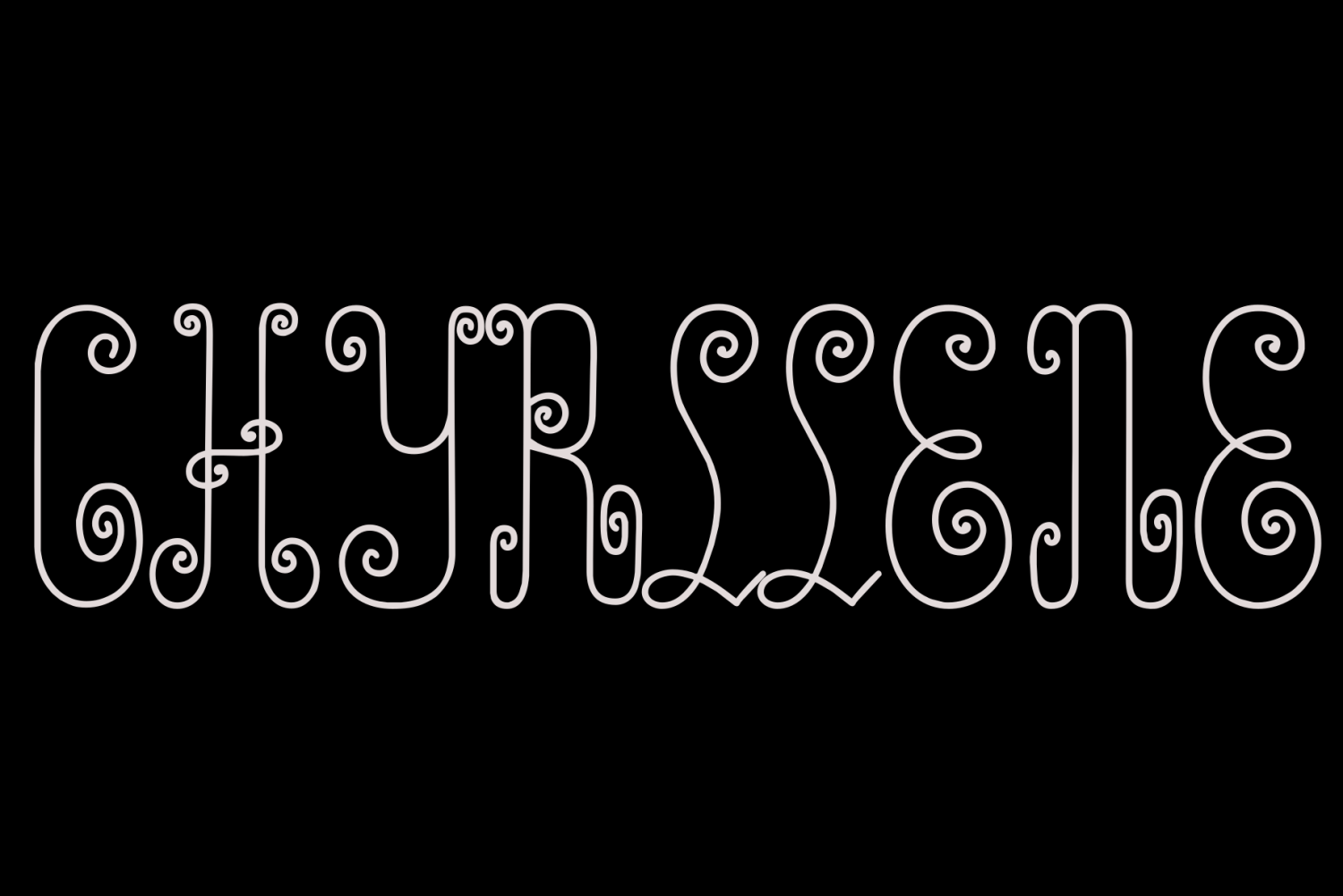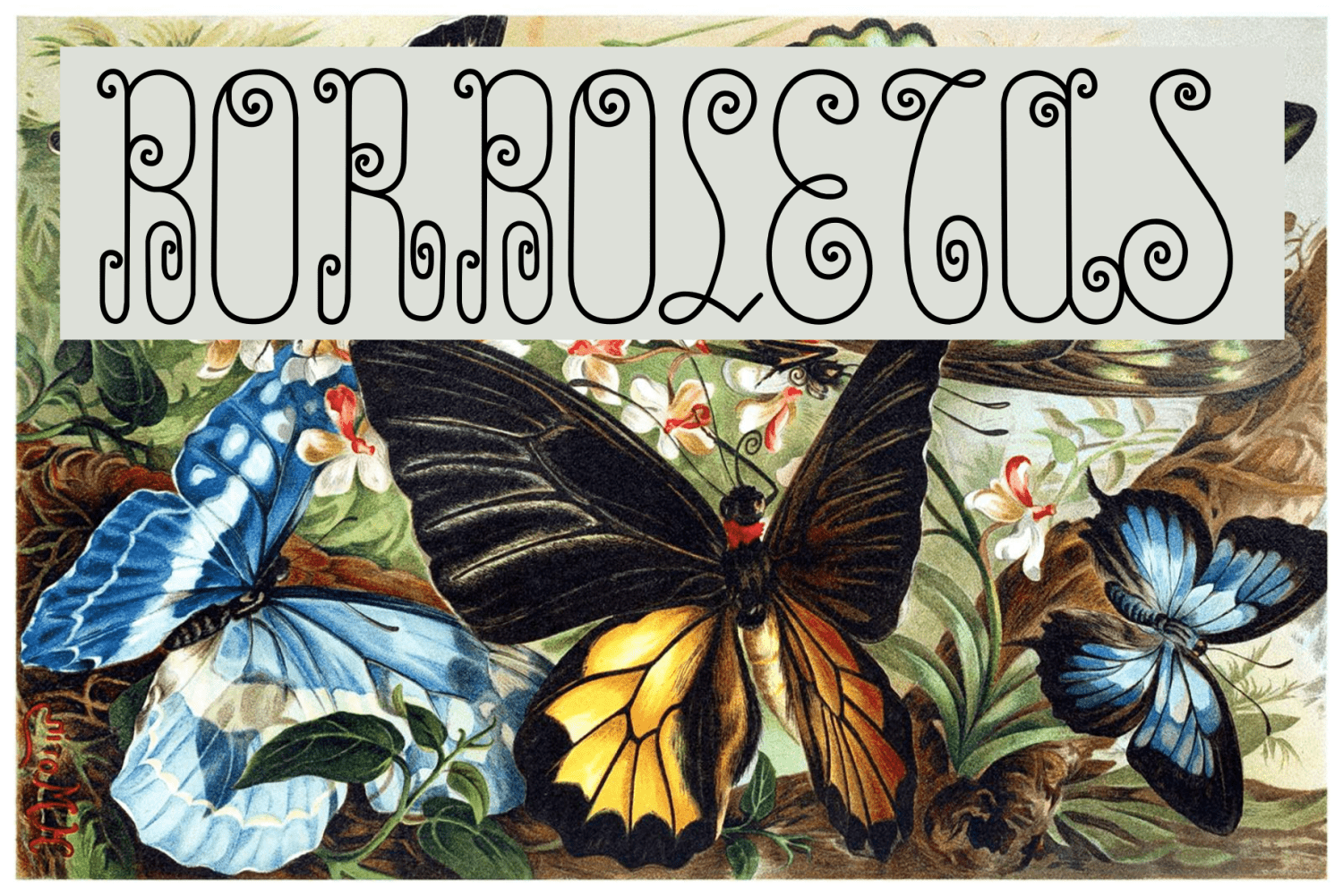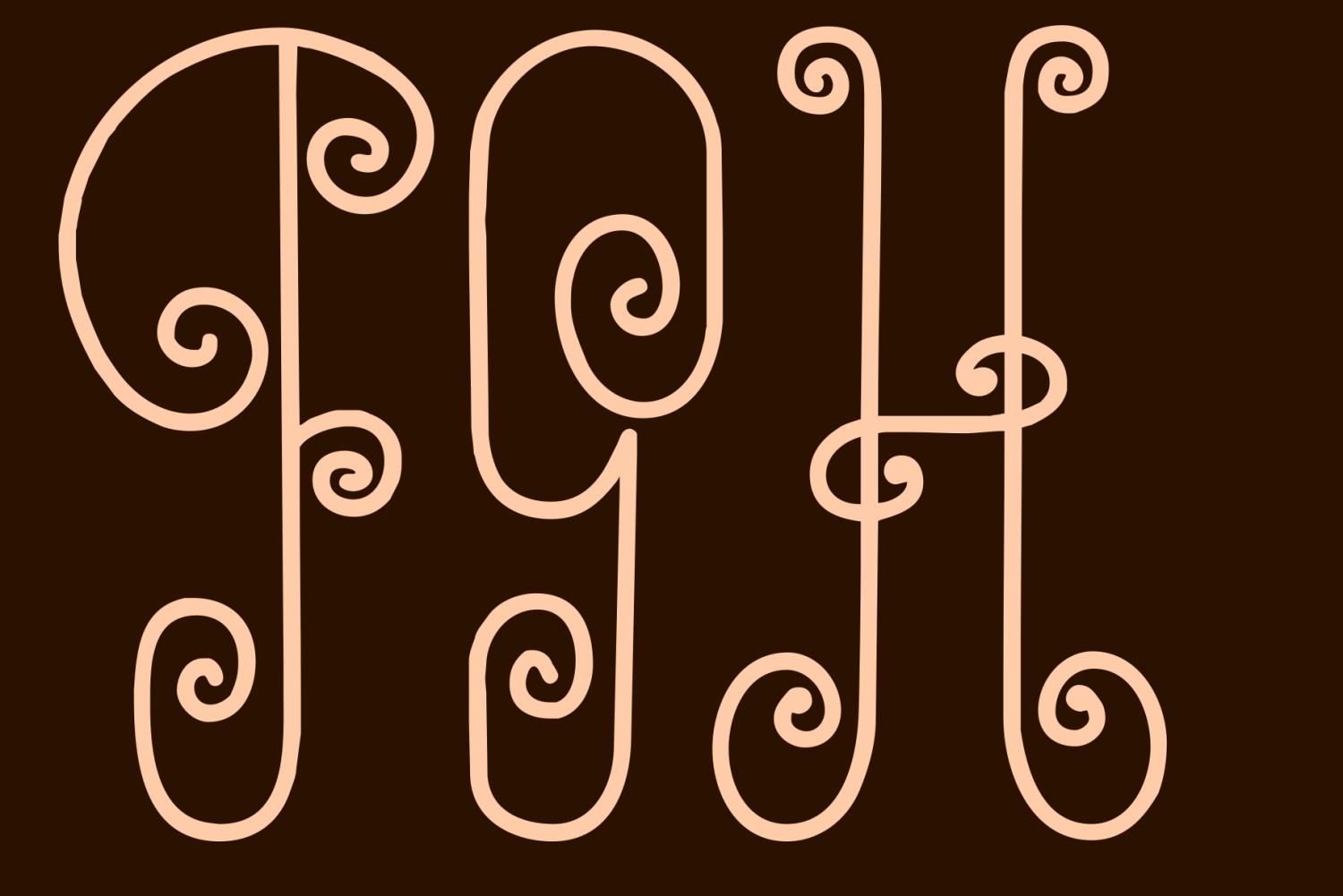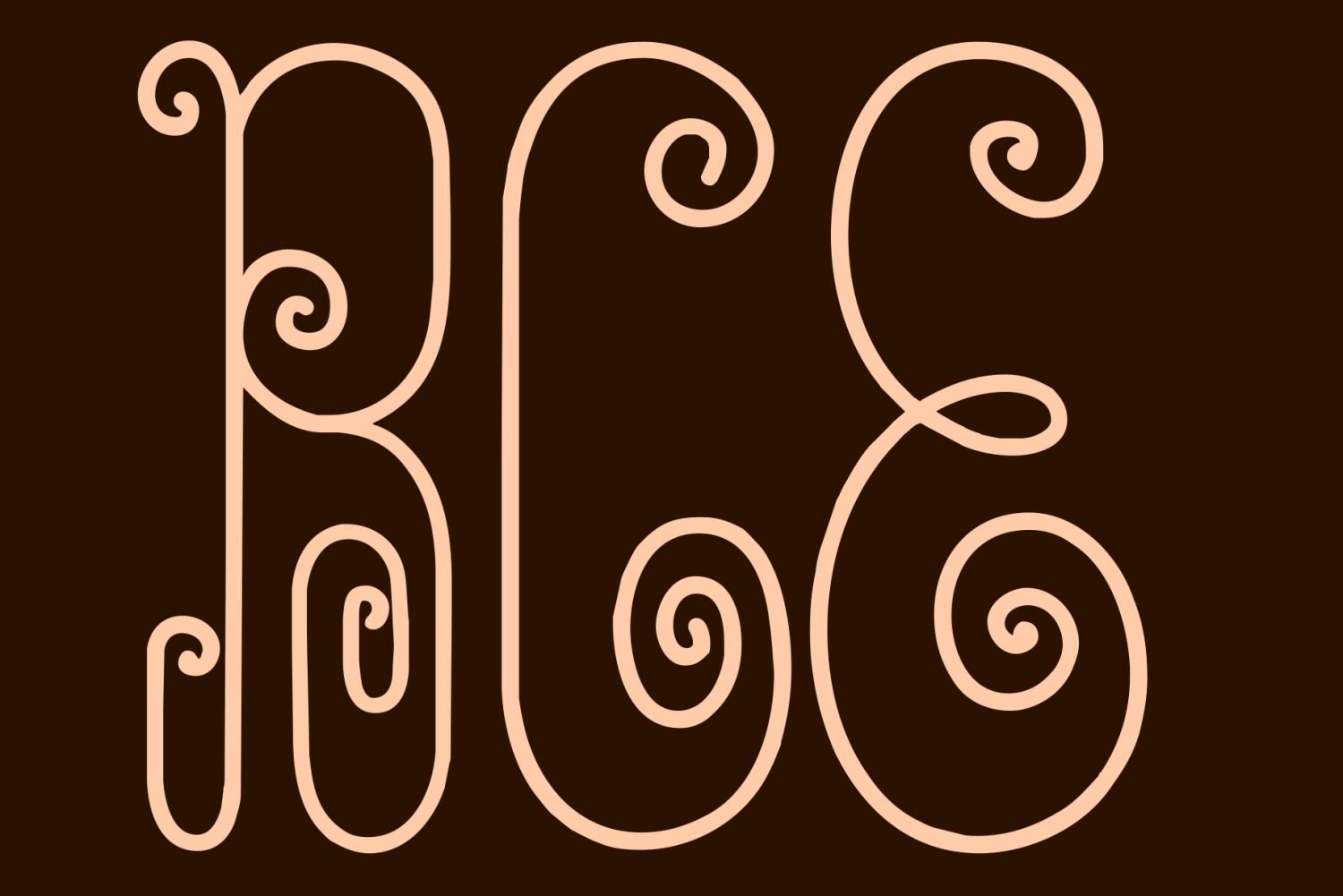
Chyrllene
Chyrllene is a decorative calligraphic font family with a formal, elegant mood and an intentionally artistic edge. Its flowing penmanship, swash-heavy details, and ornamental character give it a refined vintage feel that reads as both expressive and ceremonial.
The family includes 2 styles: Chyrllene Regular and Chyrllene Ornamental. That pairing makes it easy to move from graceful lettering to more embellished display treatments, whether you are setting names, initials, or short phrases that need extra flourish.
A strong fit for invitations, wedding pieces, holiday designs, and other decorative display work, this release from Intellecta Design brings together elegance, ornament, and a slightly eccentric sense of charm.